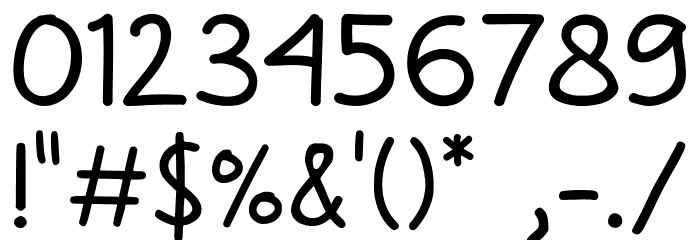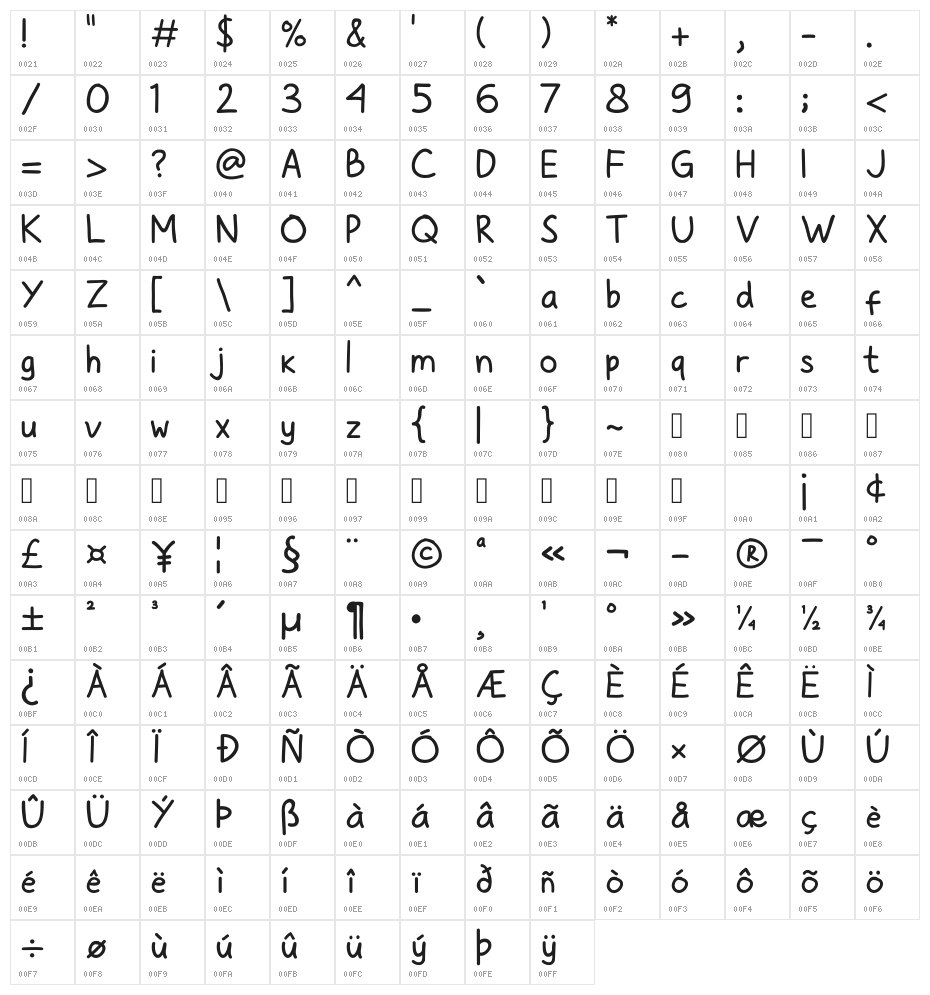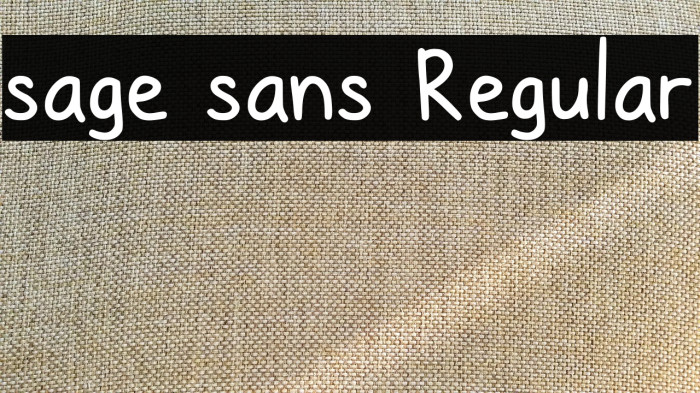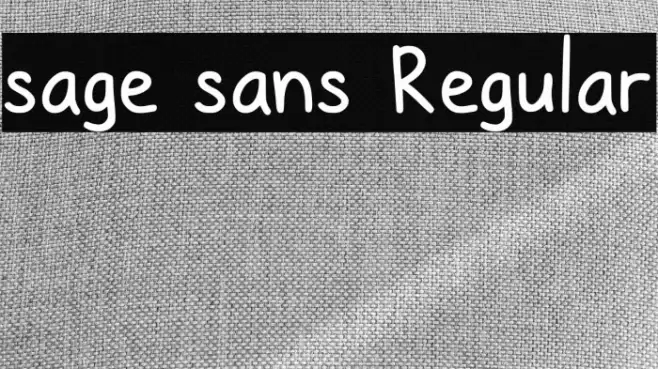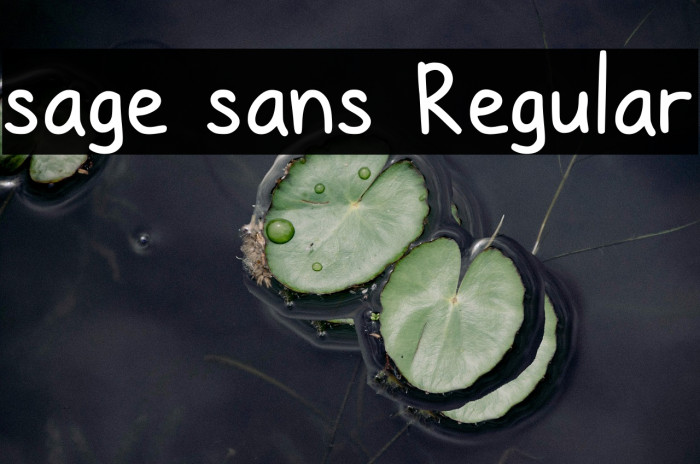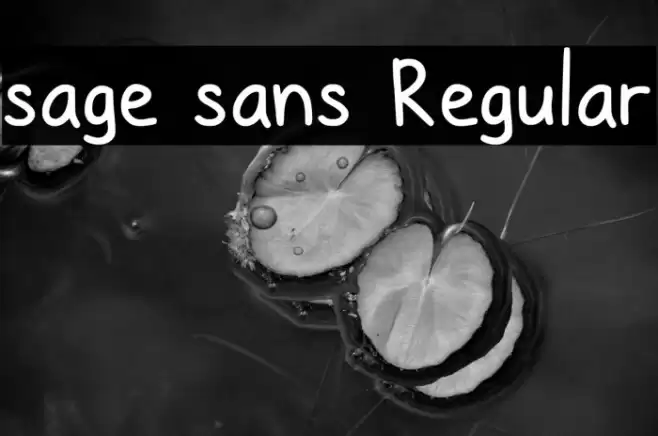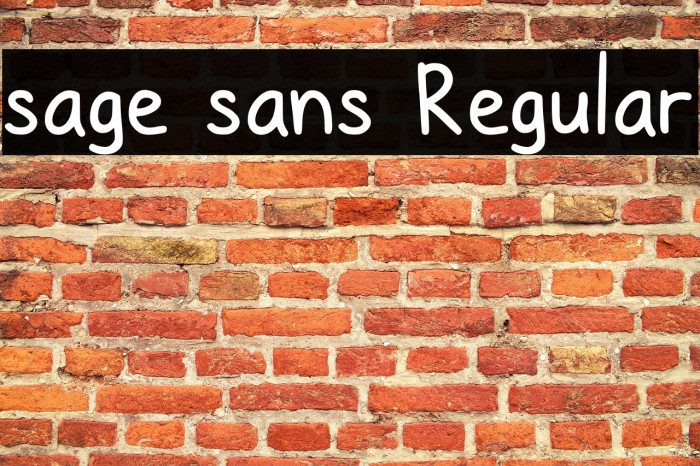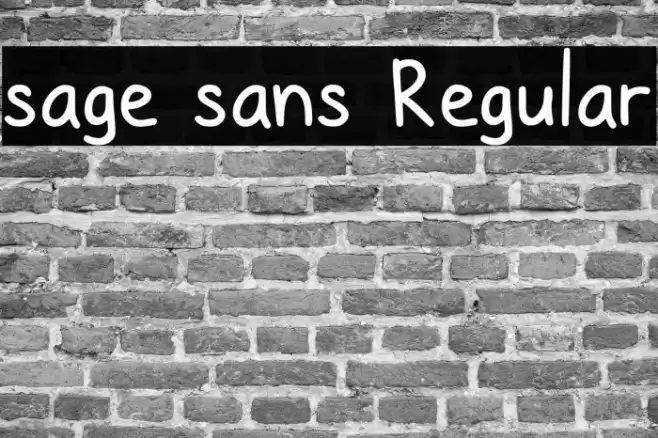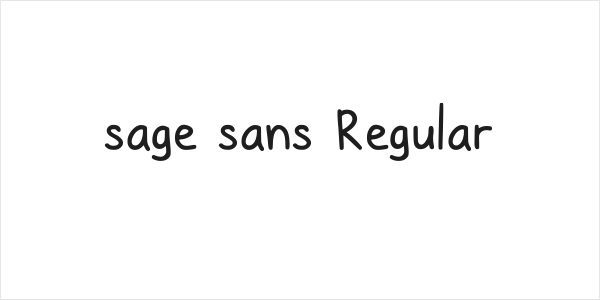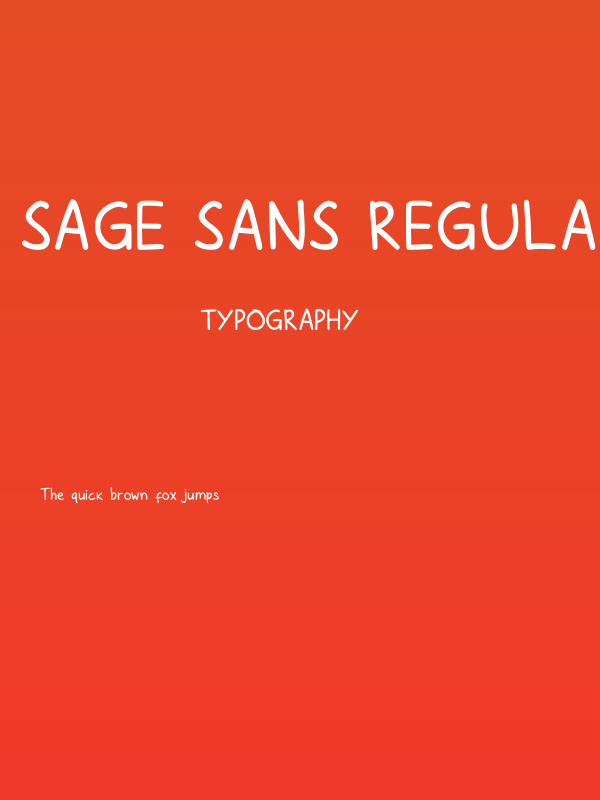
sage sans Regular Font
sage sans Regular Description
This font features a playful and casual design, characterized by its smooth, rounded edges and slightly irregular strokes. The letters have a hand-drawn quality, giving them a friendly and approachable appearance. The uppercase and lowercase letters are well-balanced, with consistent stroke widths that maintain readability. The numerals and special characters follow the same style, ensuring a cohesive look across all text elements. This font is versatile, suitable for both digital and print media, and works well in informal settings.
| Proposed Projects | Ideal for children's books, casual branding, greeting cards, and playful social media graphics. |